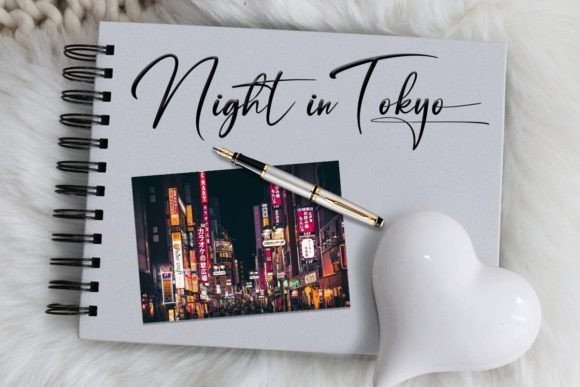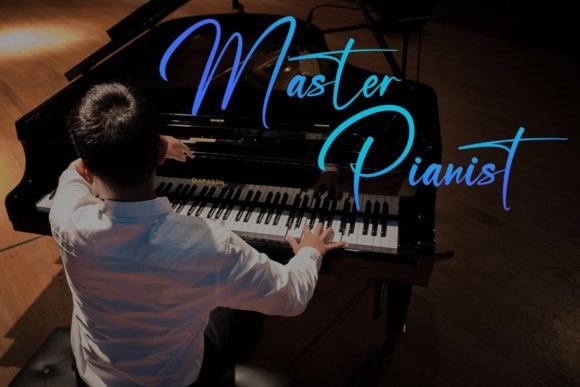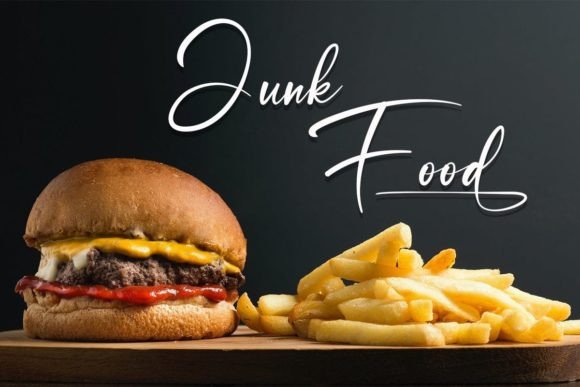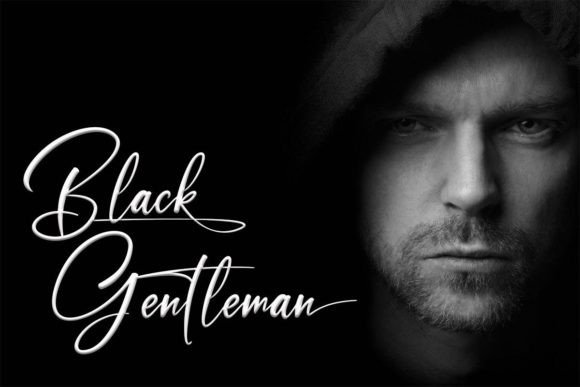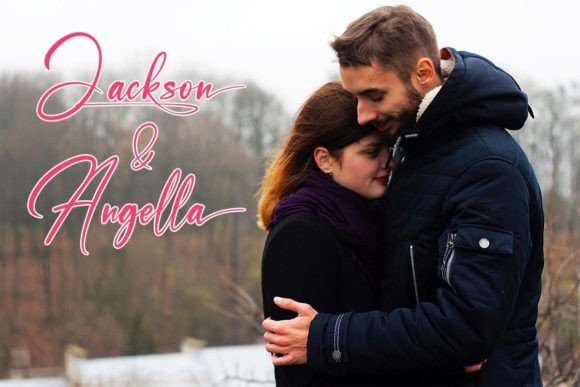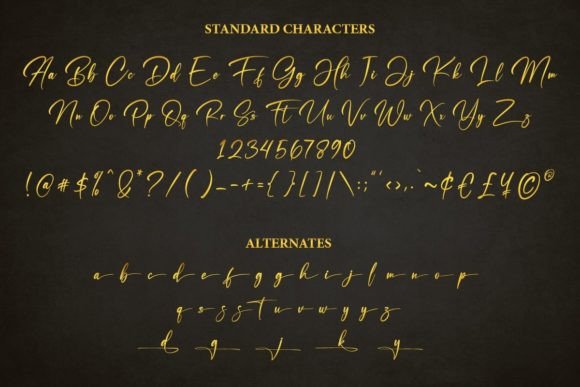
Introduction to Shiny Sign Font
As a designer, have you ever been stuck on a project, searching for the perfect font to bring it all together? We’ve all been there – scrolling through countless design resources, trying to find that one high-quality font that makes our creative project truly shine. And then, it hits you: the perfect font that elevates your design from good to great. For me, that font is the Shiny Sign Font.
This beautiful, classy signature font is a game-changer for any designer looking to add a touch of elegance to their work. With its delicate and balanced look, the Shiny Sign Font is perfect for a wide range of applications, from designing t-shirts and invitations to creating stunning magazines and photography.
Key Features of Shiny Sign Font
- High-quality design resource suitable for various creative projects, including advertisements and posters.
- Features a transparent background, allowing for seamless integration with any design element.
- Comes in a variety of sizes, including small, medium, and large, to accommodate different design requirements.
- Designed at a high resolution of 300 DPI, ensuring crisp and clear display on various screens and print materials.
- Includes a range of unique characters and glyphs, making it an ideal choice for creative projects that require a distinctive look.
- Can be easily customized and edited using popular design software, including Adobe Illustrator and Photoshop.
Honest Review: Shiny Sign Font
As a designer, I’m always on the lookout for high-quality design resources that can elevate my creative projects. I recently stumbled upon the Shiny Sign Font, and I’m excited to share my honest review.
What works well: ✨ The font has a unique, retro vibe that’s perfect for projects that require a touch of nostalgia. The high-quality design ensures that the font looks great on both light and dark backgrounds, making it a versatile choice for designers. Additionally, the transparent background option is a nice touch, allowing for seamless integration into creative projects.
- Unique, retro aesthetic
However, I did notice a few limitations: ⚠️ The font only comes in a limited range of weights, which may not be ideal for projects that require a lot of font variation. Additionally, the font may not be suitable for very small text sizes, as the characters can become slightly pixelated.
Getting the Most Out of Shiny Sign Font
To get the most out of Shiny Sign Font, use it for:
- Signage and logo design.
- Graphic design and branding.
- Web design and digital marketing.
Shiny Sign Font is commonly used for:
- Restaurant and cafe signage.
- Event and party invitations. Alternatives to Shiny Sign Font
Alex Brush Font is a high-quality, handwritten font that can be used for various design projects. It features a transparent background and a beautiful, elegant script style. Use it for wedding invitations, greeting cards, or any creative project that requires a personal touch.
Compared to Shiny Sign Font, Alex Brush Font has a more elegant and sophisticated feel, making it perfect for high-end design projects. While Shiny Sign Font is great for casual and playful designs, Alex Brush Font excels in creating a more refined and luxurious look.